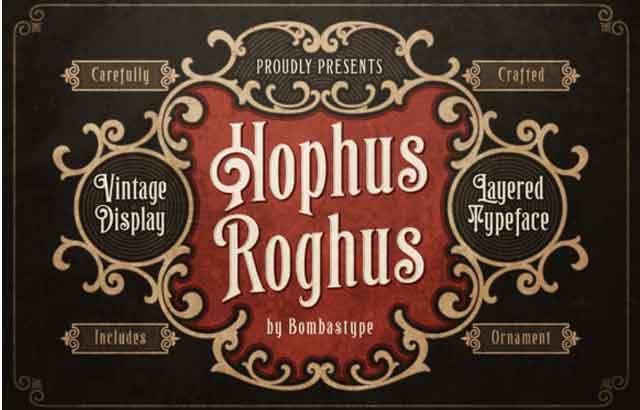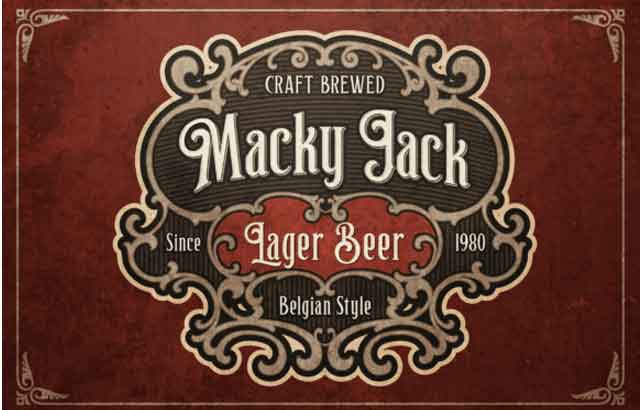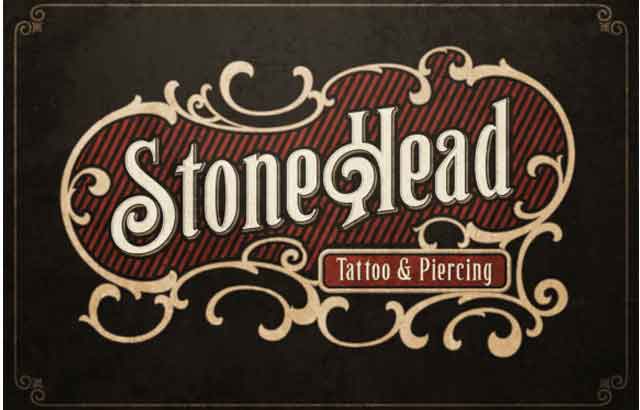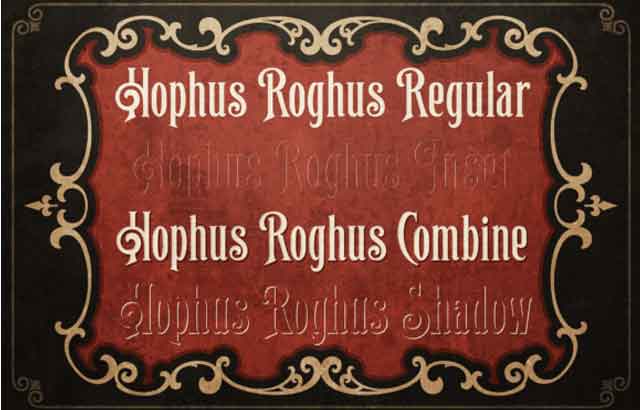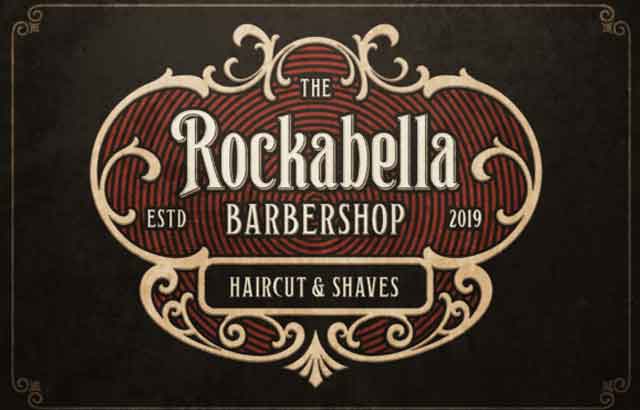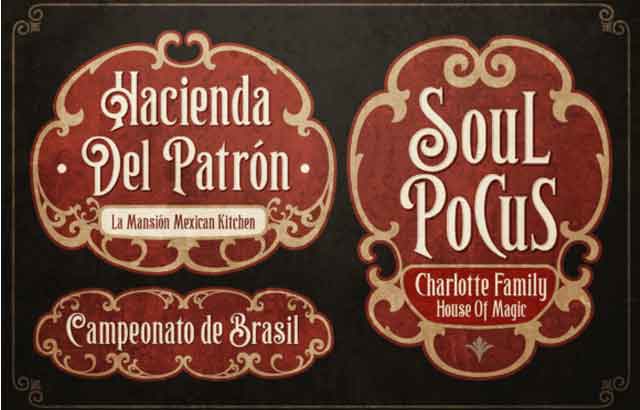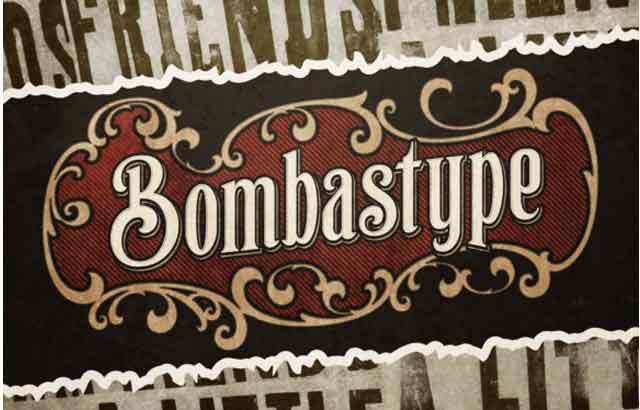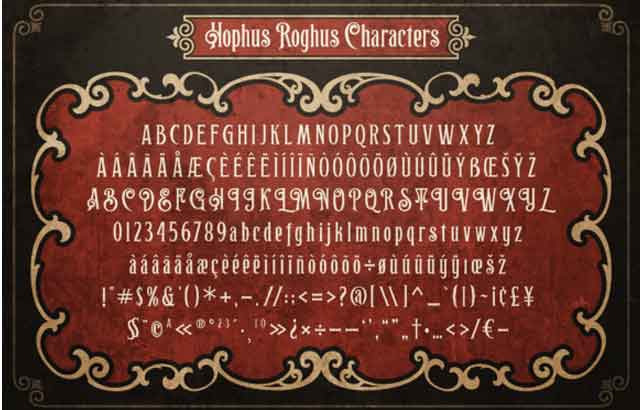
Hophus Roghus Display Font Free Download
Hocus Pocus! Hophus Roghus is a magical and vintage display font, perfect for any circus or Halloween themed project!